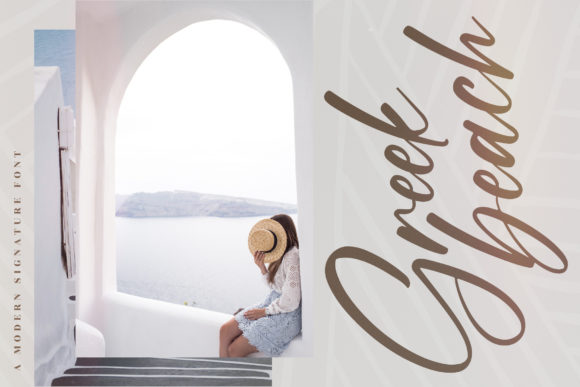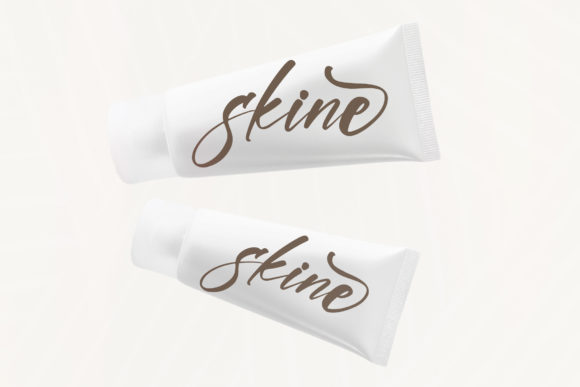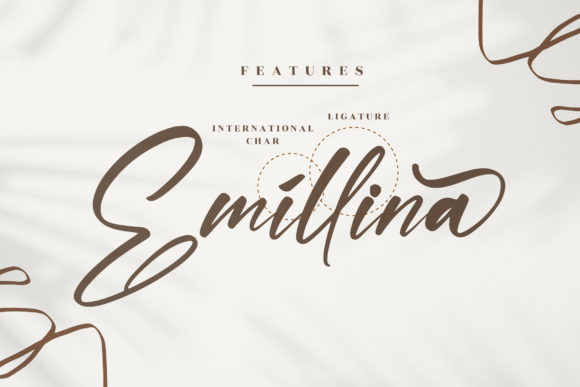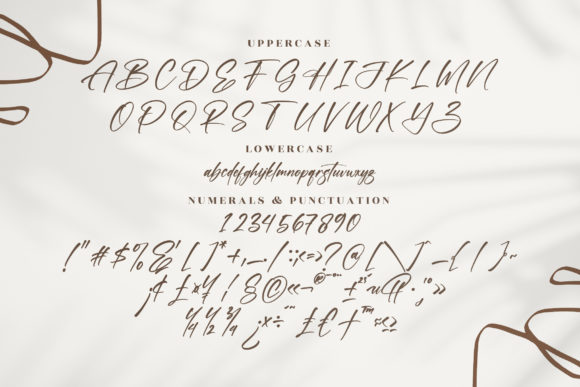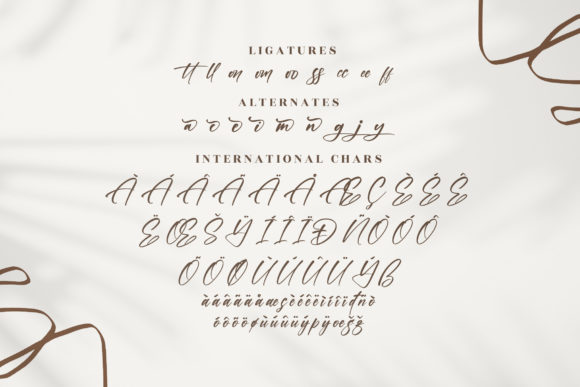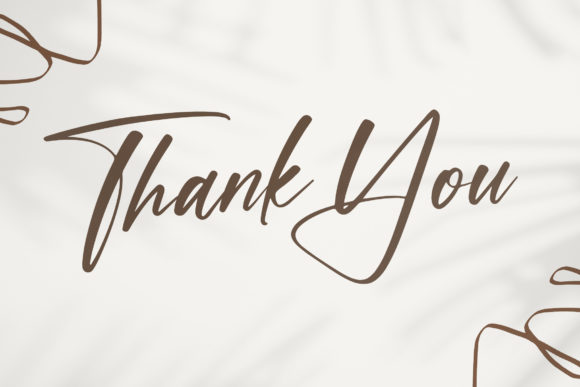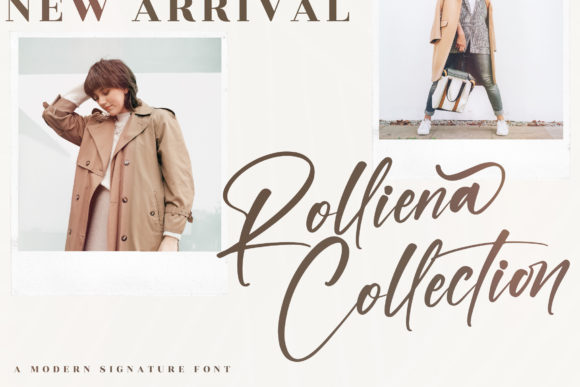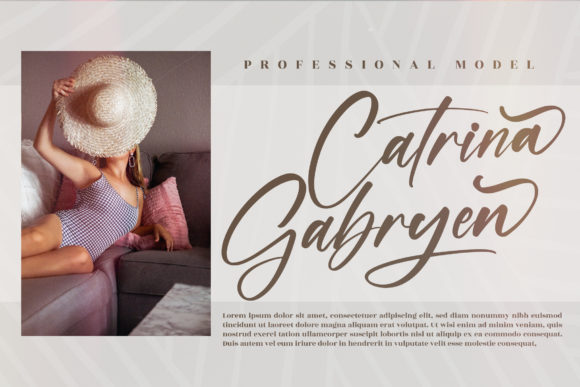
Rollasa Alayni Font
About Rollasa Alayni Font
Rollasa Alayni is a delicate, elegant and flowing handwritten font. It has beautiful and well balanced characters and as a result, it matches a wide pool of designs. Rollasa Alayni is PUA encoded which means you can access all of the glyphs and swashes with ease!